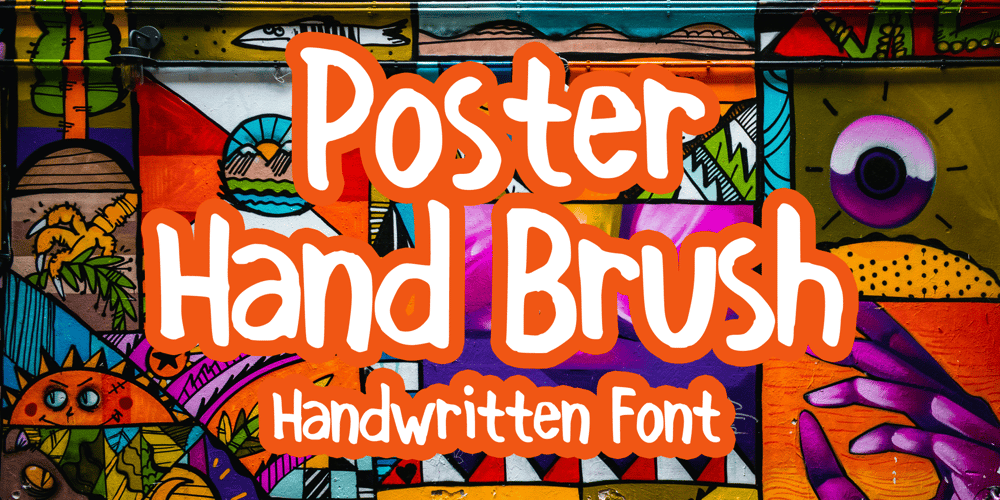
Poster Hand Brush Font Family was designed by Gabriel Valentinus and published by Mvmet. Poster Hand Brush contains 1 styles and family package options. Poster Hand Brush is a playful handwritten marker font, suitable if you need handmade typography on your designs. You can use it for anything ranging from t-shirts and clothing, for your book designs, summer party needs, greeting cards, stickers, posters, banners, or anything that needs a bold and fun touch. Try it to create fabulous designs and feel the fun and cheering vibes with it!